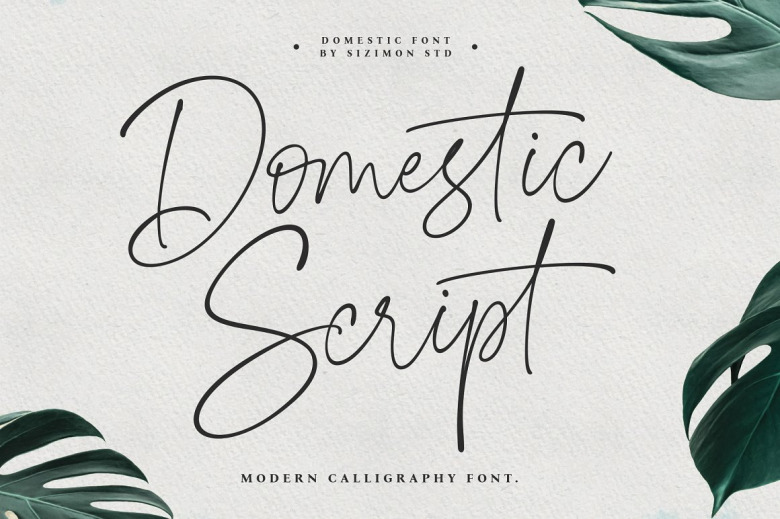
Domestic is a beautiful, classic stylish Handwriting font manufactured by sizimon. It has unique looks that are beautiful,exclusive, elegant, luxury, lettering, old school, vintage and sophisticated handwritten font. So, this font is perfect for quotes, branding, ornaments, shirts, mugs, headings, blogs, logos, invitations and more!